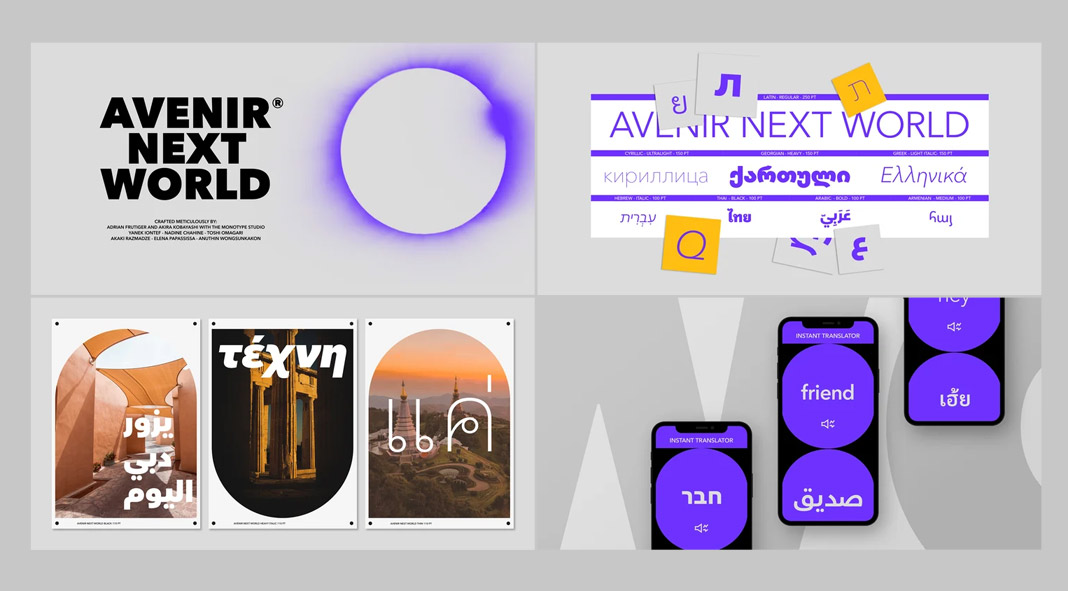
Avenir Next World — the expansion of the renowned Avenir typeface that has been designed in 1988 by Adrian Frutiger.
Led by Monotype Type Director, Akira Kobayashi—who also worked alongside Adrian Frutiger to modernize and expand the original family into Avenir Next in 2012, the iconic typeface has been expanded once again to accommodate more languages. Published at the beginning of 2021, Avenir Next World covers 150 languages including all Latin-based characters as well as Cyrillic, Greek, Hebrew, Arabic, Georgian, Armenian, and even Thai writing systems. The respective 10 Italic styles do not support Arabic, Georgian and Thai, since Italic styles are unfamiliar in these scripts/languages. Avenir Next World contains 10 weights ranging from UltraLight to Heavy.